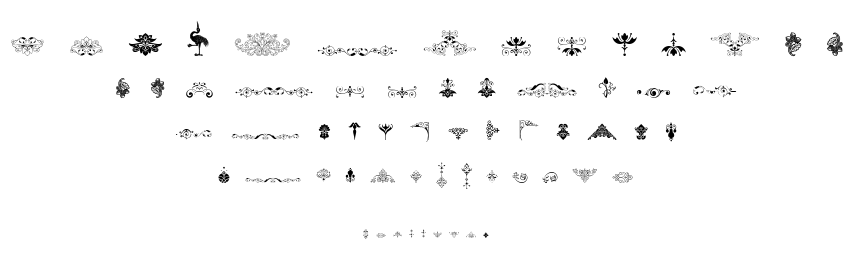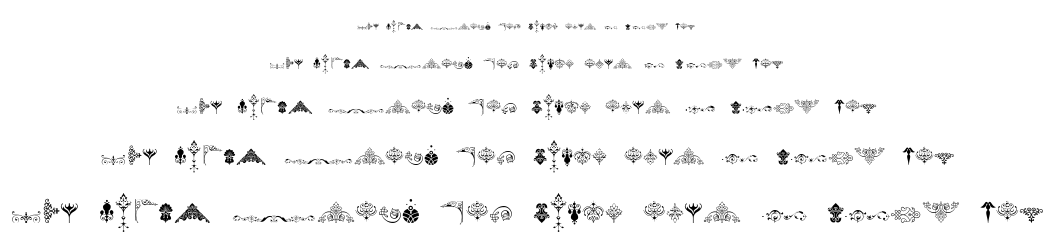
Rough Fleurons Free version, by Intellecta Design
Rough Fleurons Free is a non-commercial version with a unpublished set, different than the original Rough Fleurons. To purchase the original Rough Fleurons family (eight fonts and over 400 ornaments and